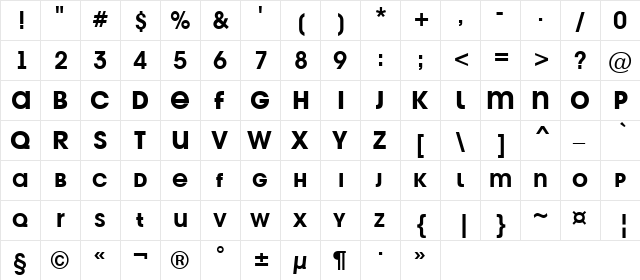
a_AvanteTitlerCpsLC Bold
Design Context for a_AvanteTitlerCpsLC Typeface
a_AvanteTitlerCpsLC takes a measured approach to typography — its balanced proportions and neutral character make it a reliable workhorse for both digital and print work. Its bold stroke weight gives it real presence on the page.